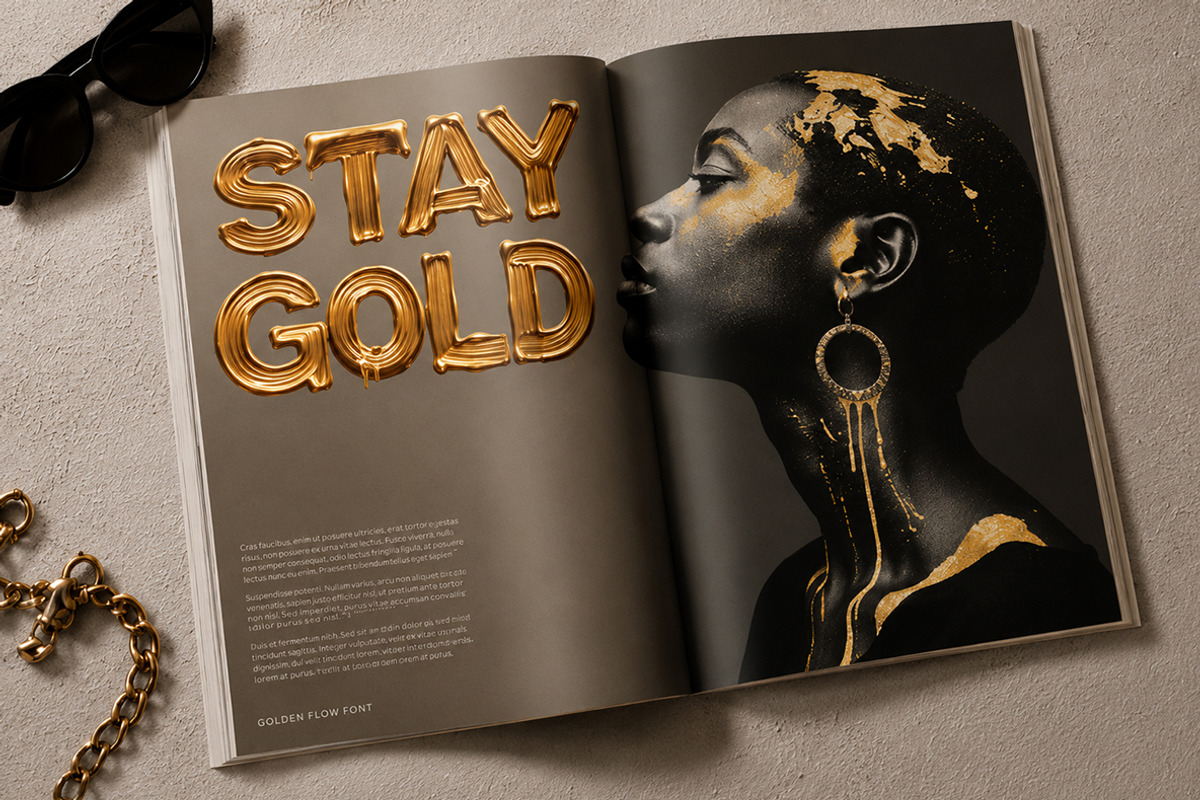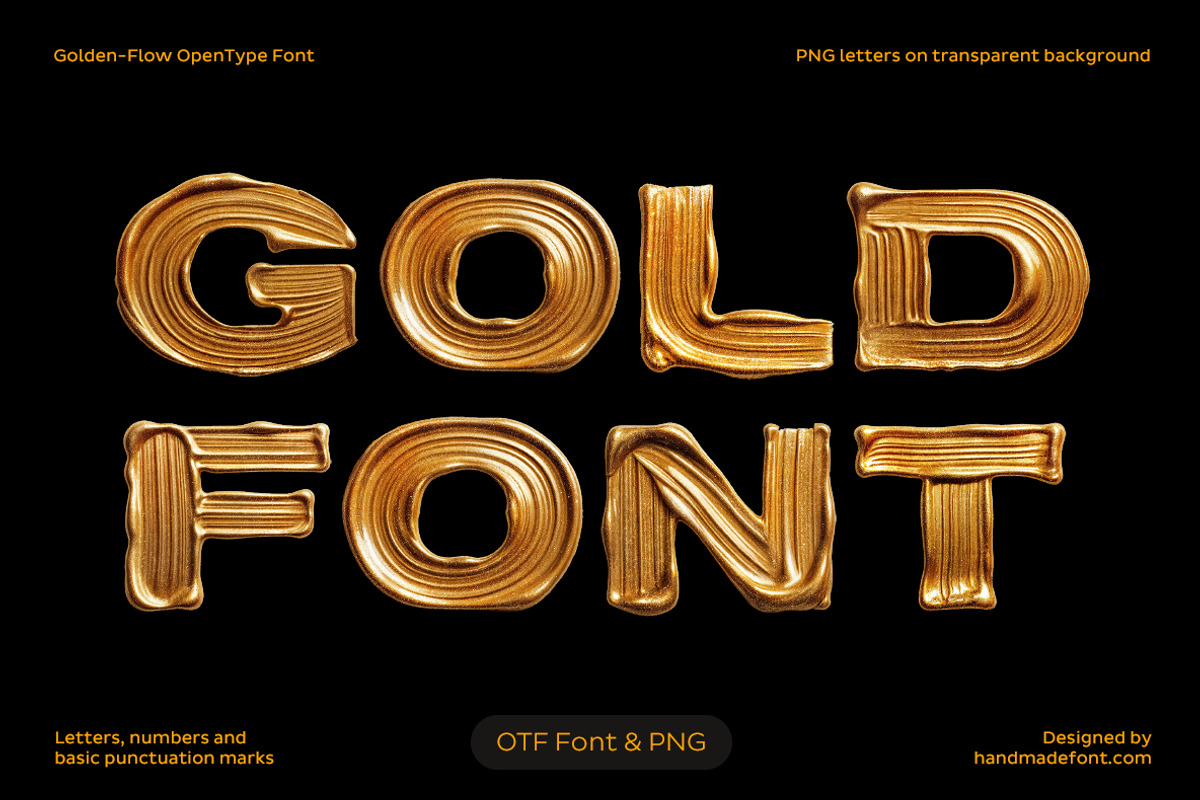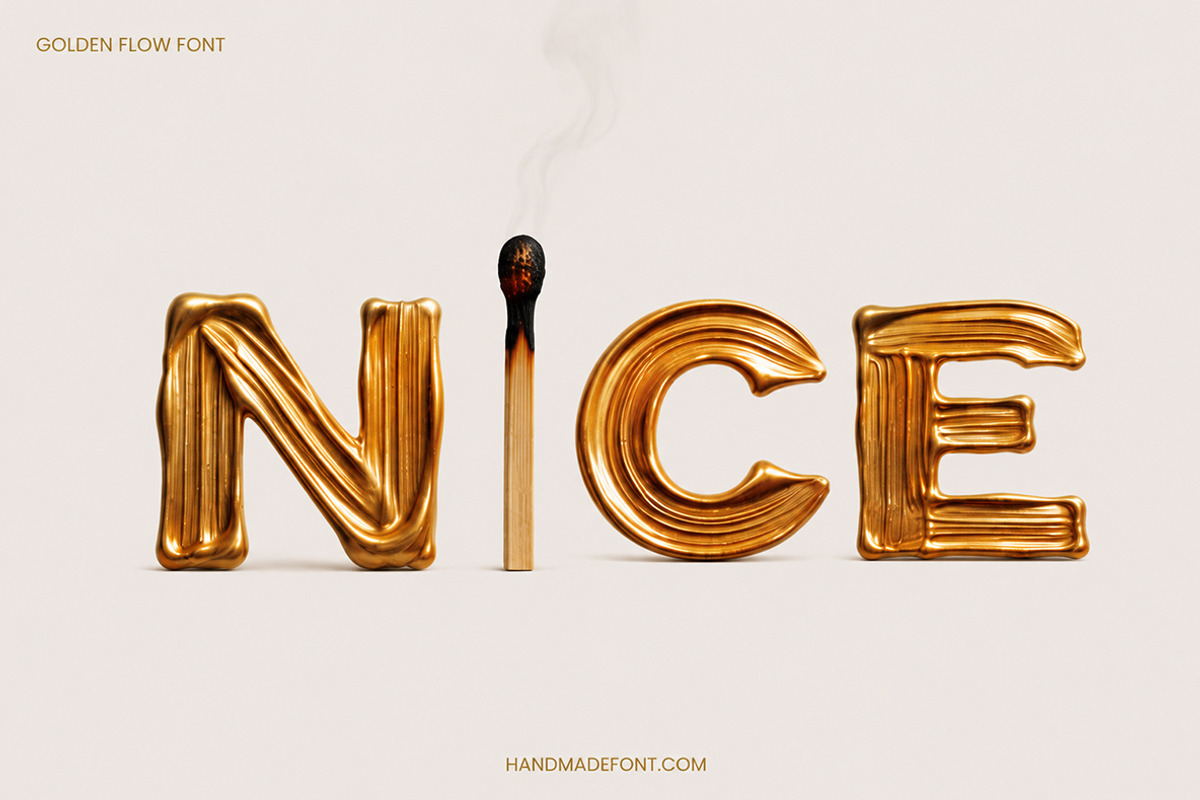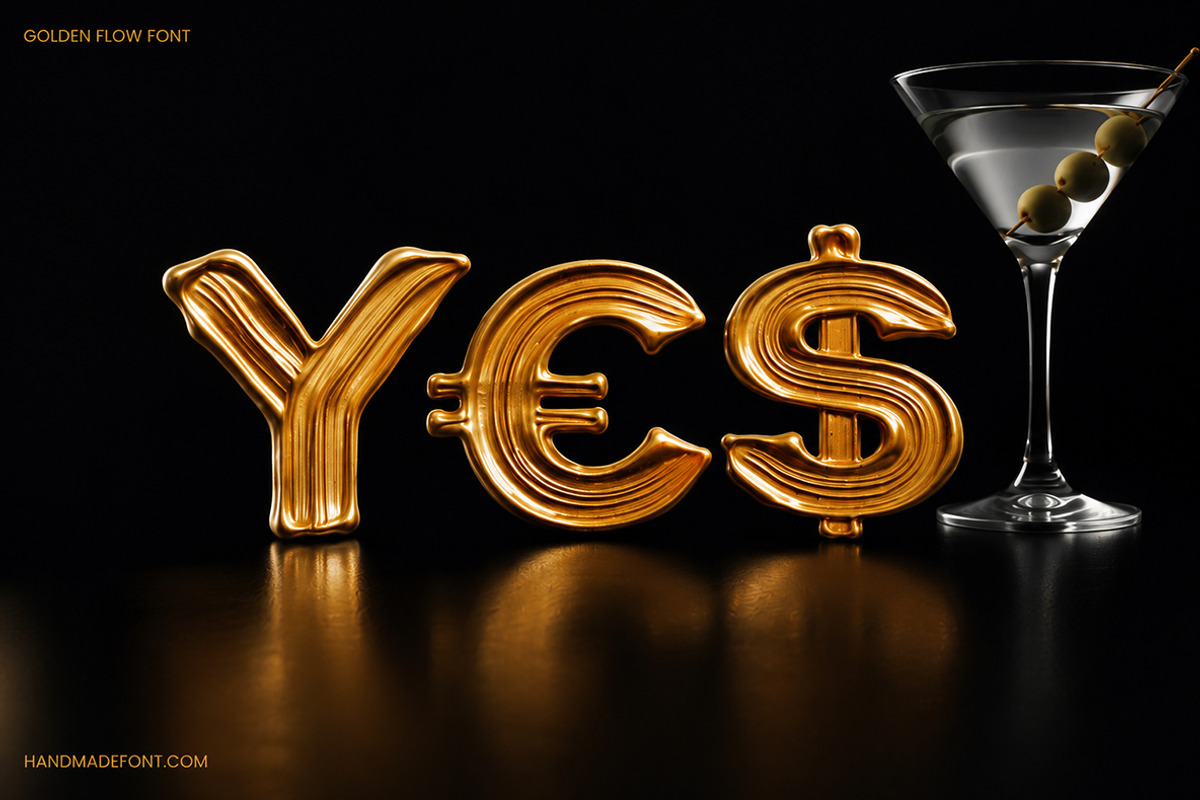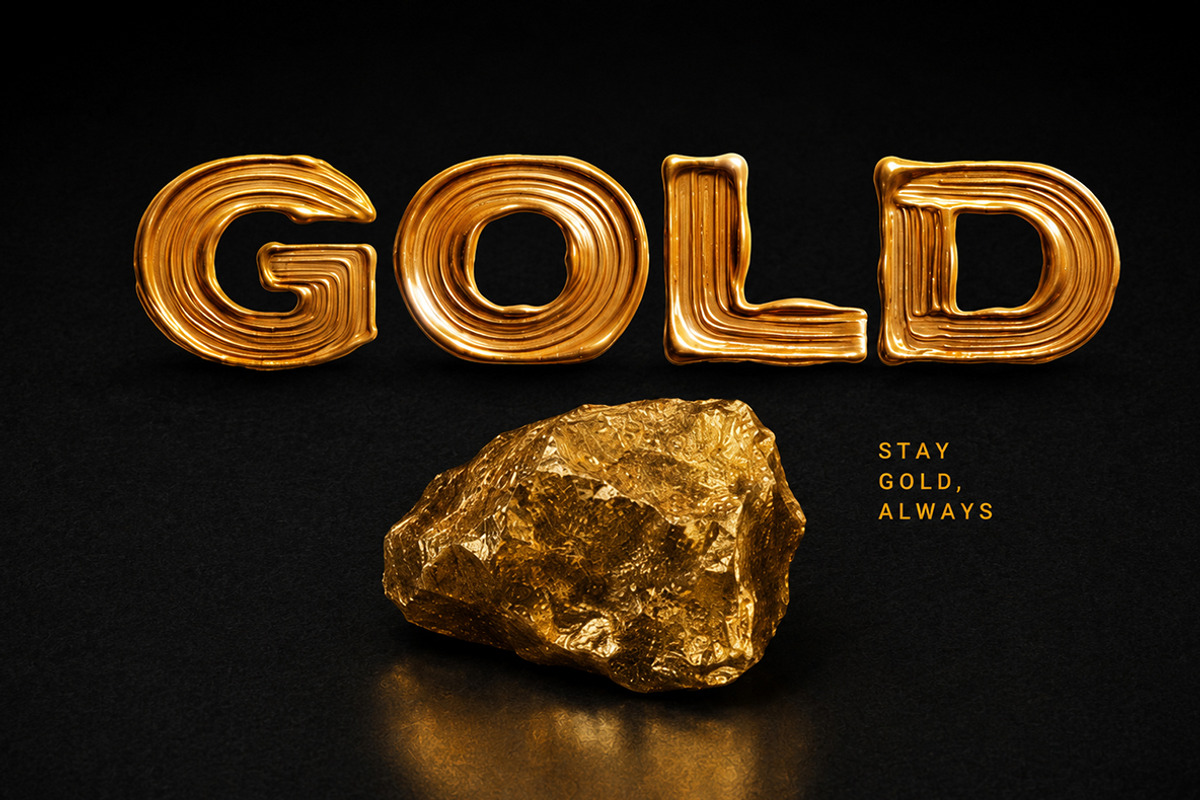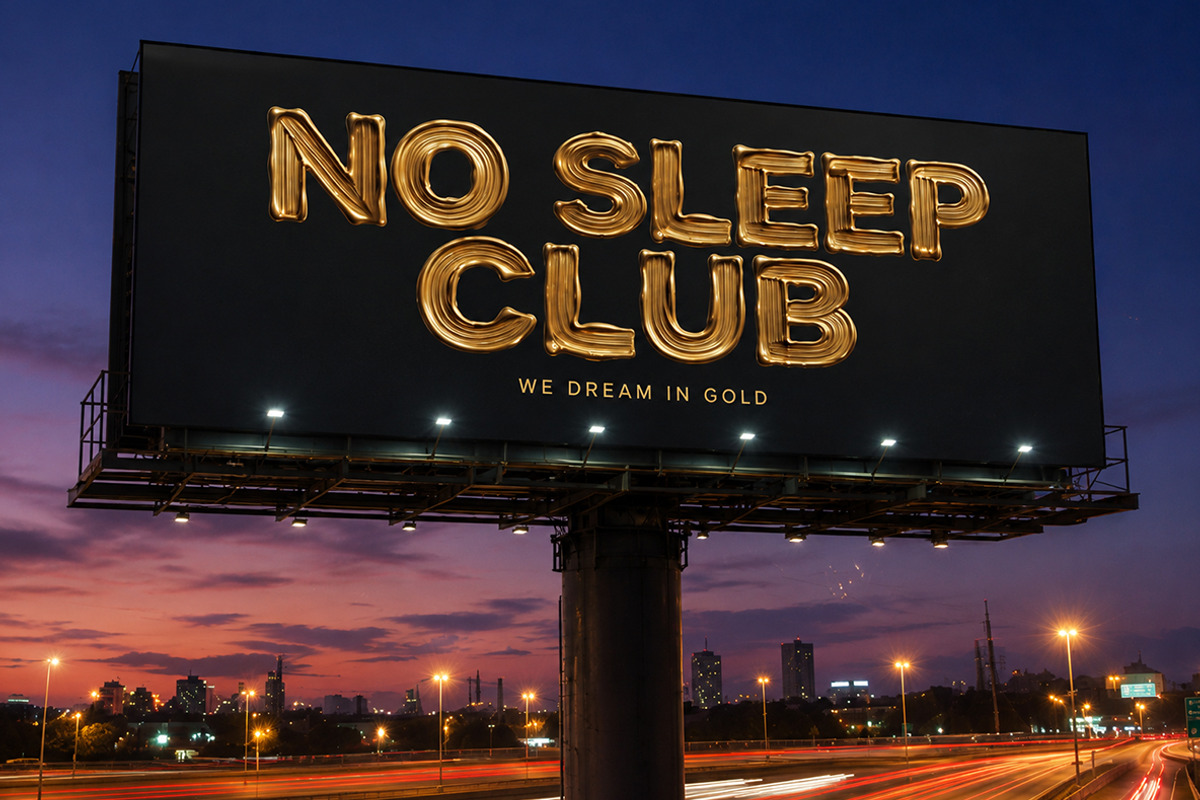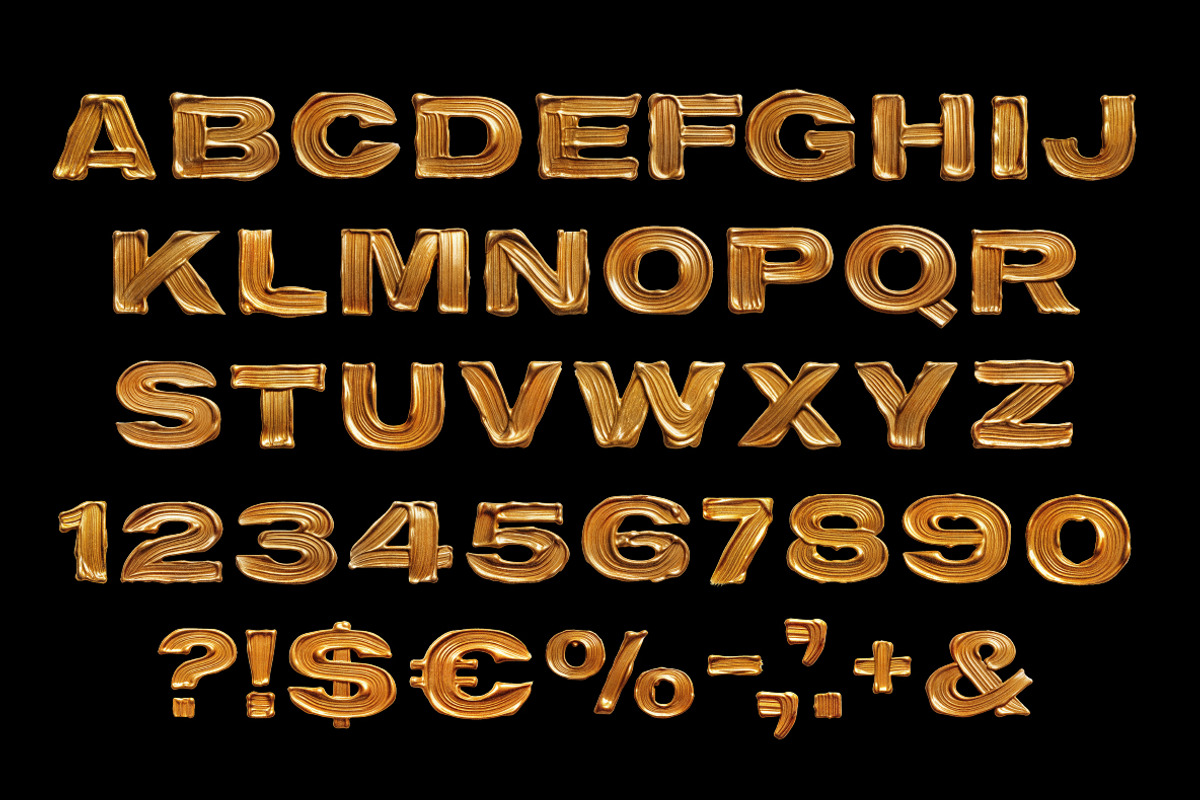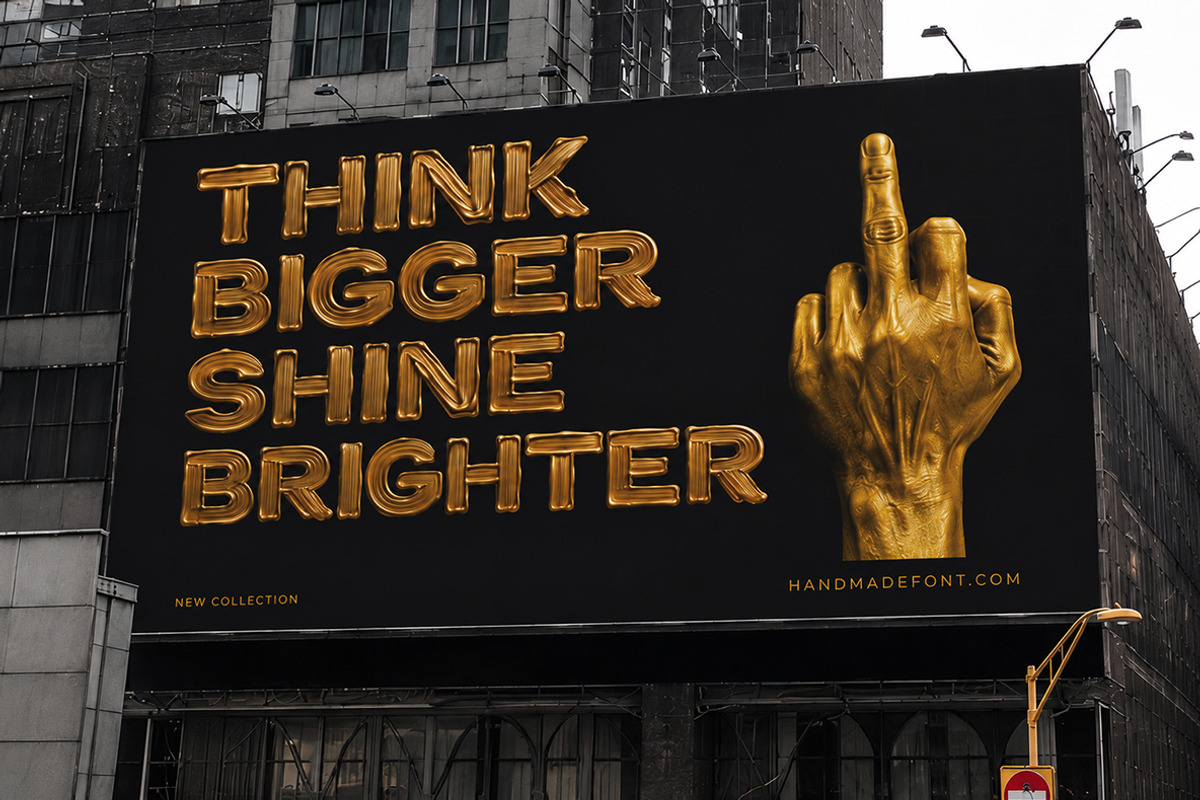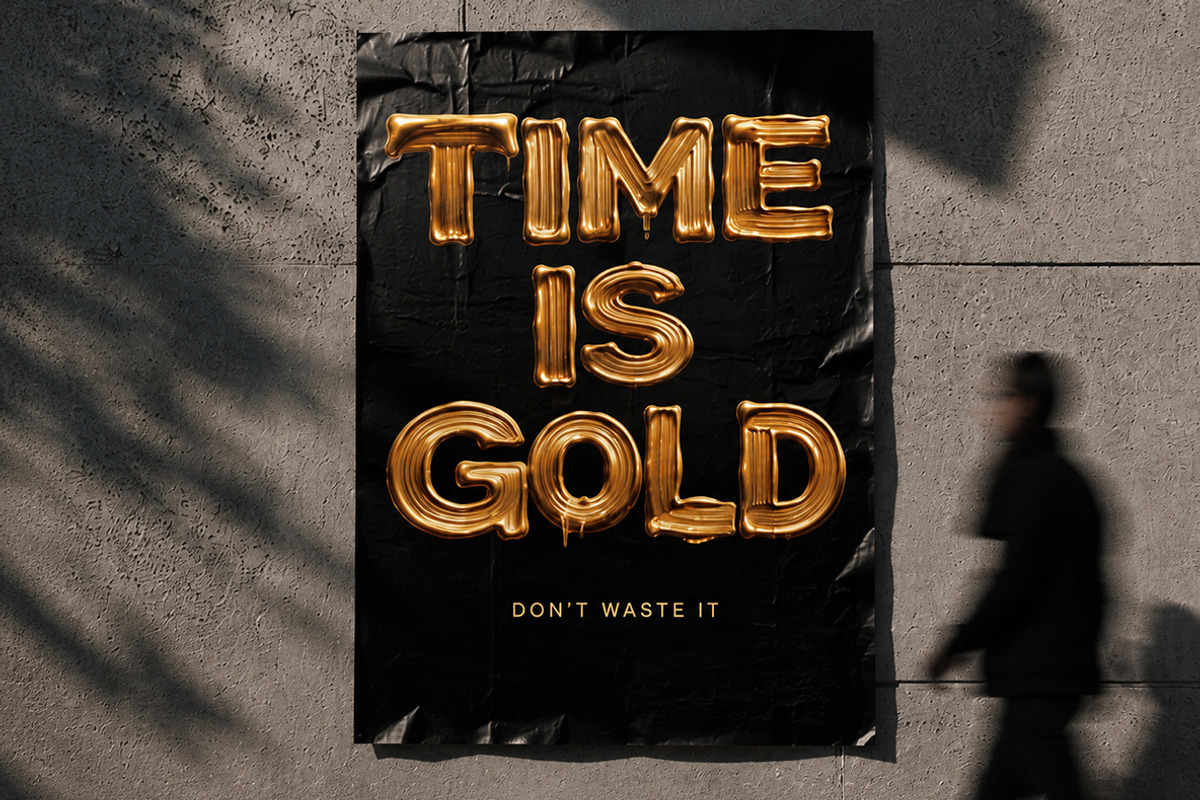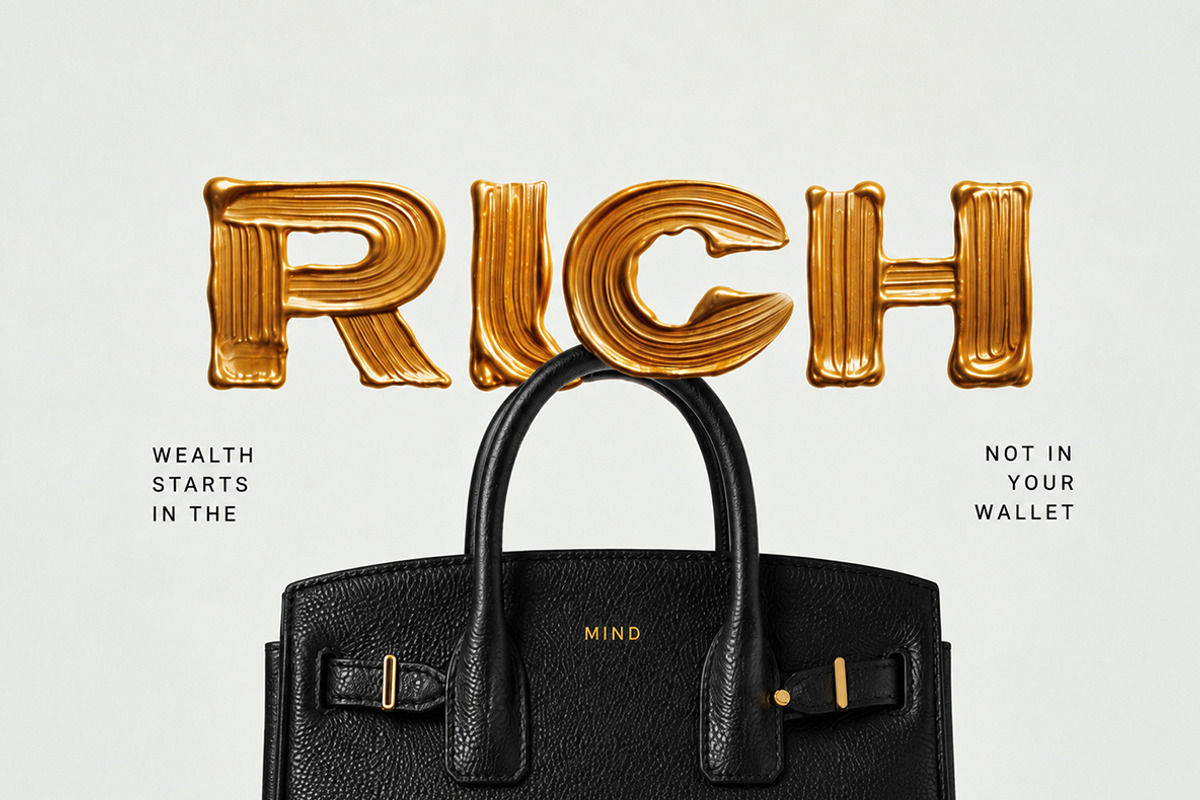
Golden Flow Font
Golden Flow Font is a premium handcrafted display typeface inspired by the fluid elegance of molten gold. Every character features rich metallic textures, smooth flowing contours, and luxurious organic details that instantly capture attention. The package includes a fully functional OpenType (OTF) font for effortless typing, plus individual high-resolution PNG letters with transparent backgrounds, giving designers complete creative freedom. Perfect for branding, luxury packaging, social media, posters, advertising, logos, editorial layouts, invitations, and premium merchandise. Golden Flow Font combines bold visual impact with artistic craftsmanship, making every word feel valuable, sophisticated, and unforgettable. Create striking designs that truly shine with golden elegance.